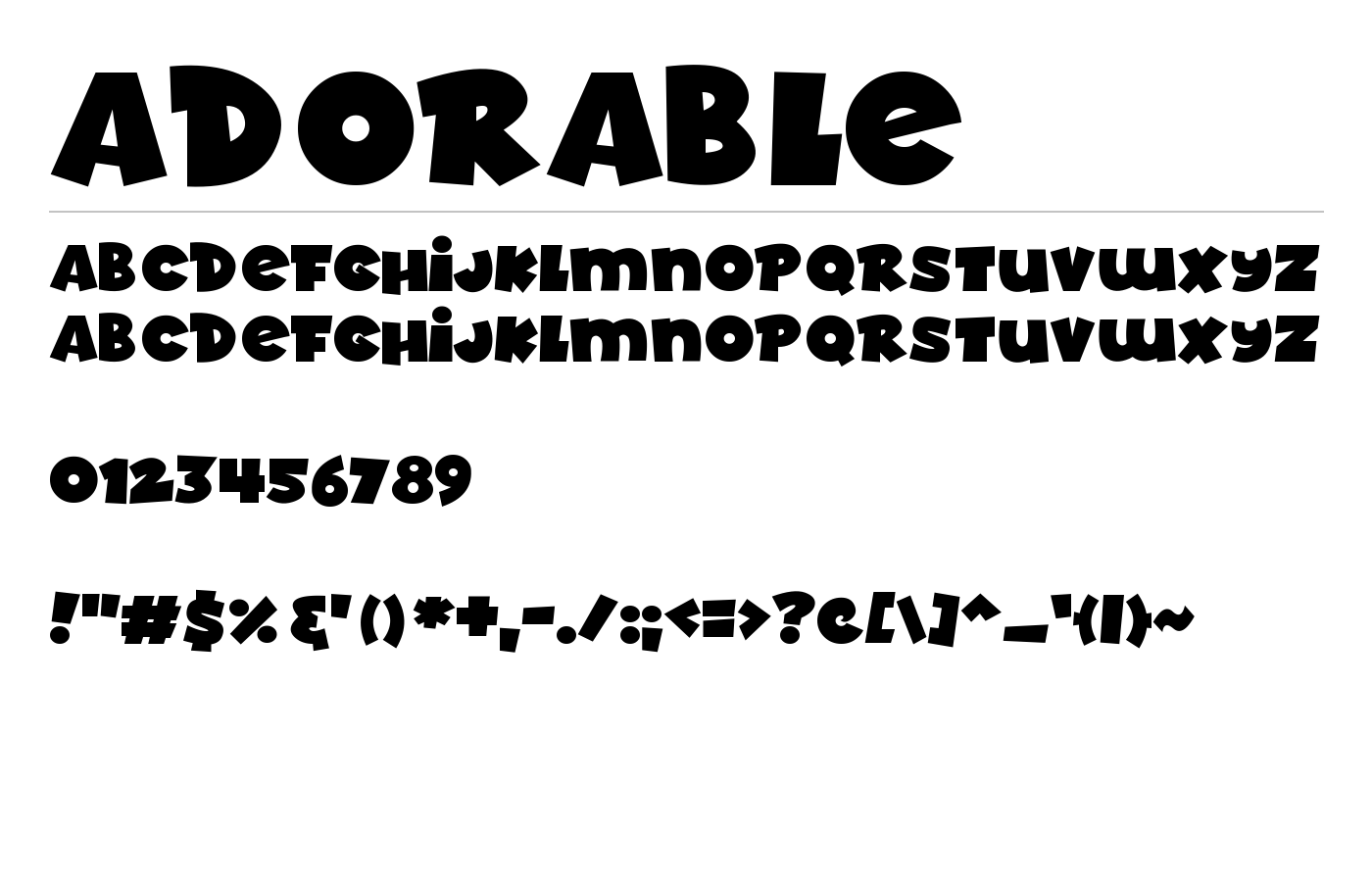
Adorable is a bold, playful sans serif font with chunky, irregular letterforms and a fun, informal vibe. Its thick strokes and uneven shapes create a lively, childlike personality, making it perfect for eye-catching headlines, logos, and designs aimed at a young or whimsical audience. This font works best where a friendly, energetic tone is desired, such as in children's books, party invitations, and casual branding.
Adorable Font